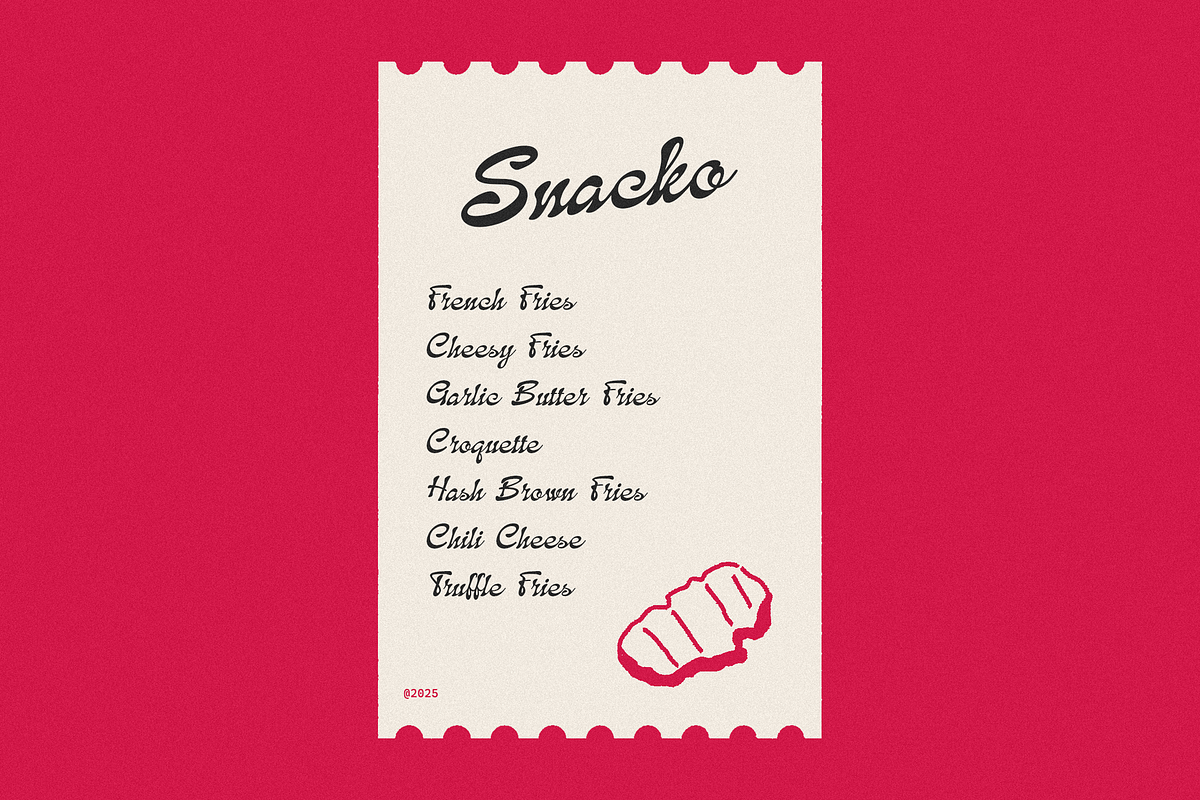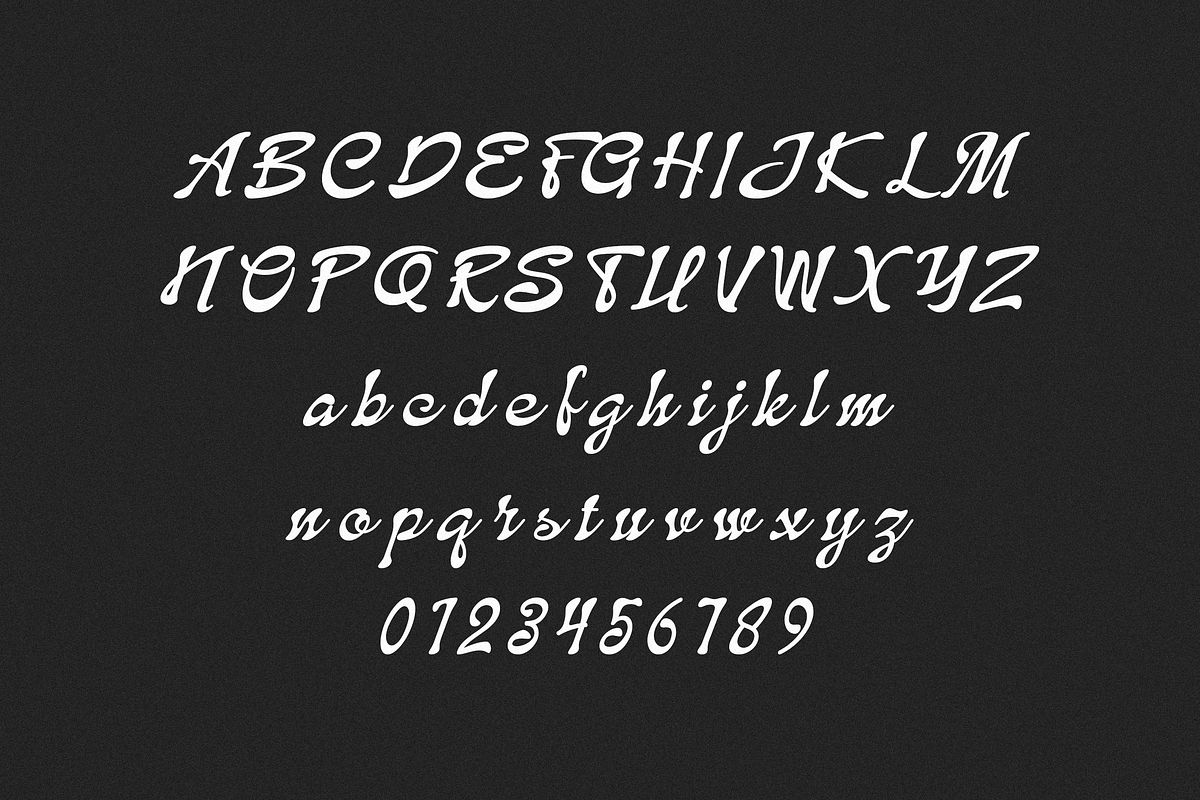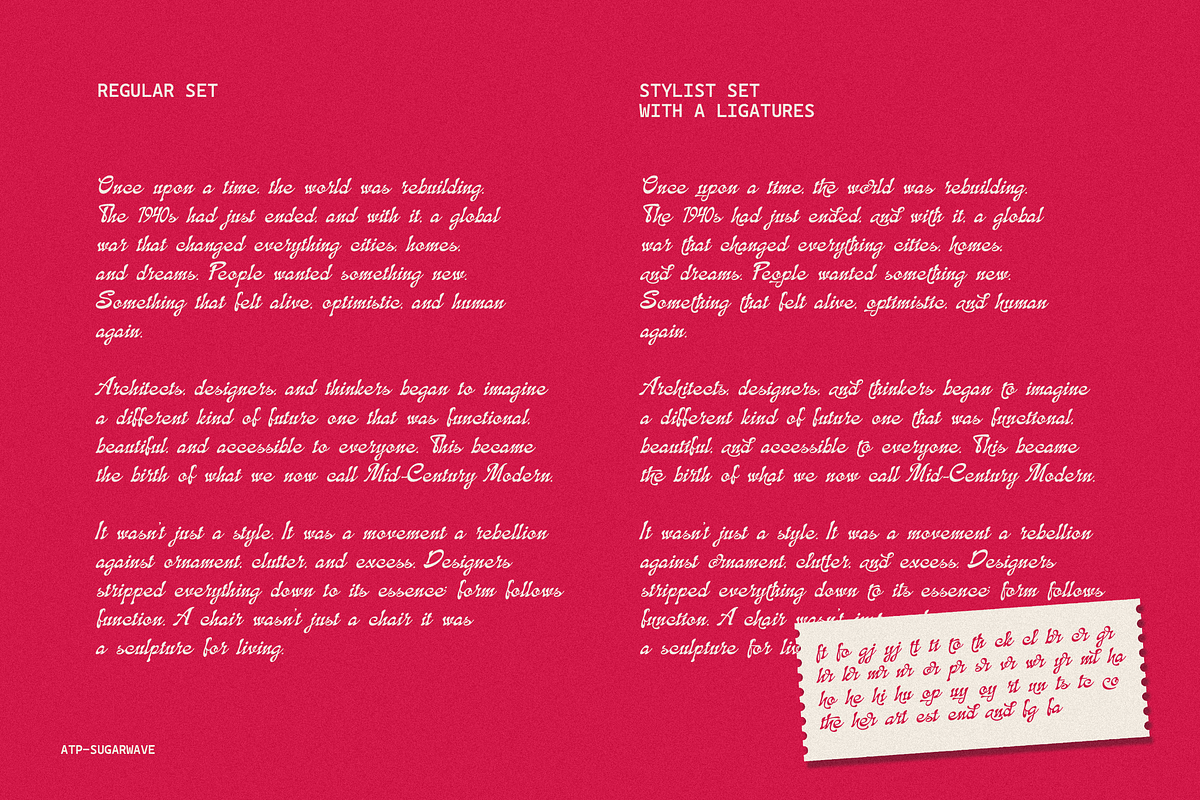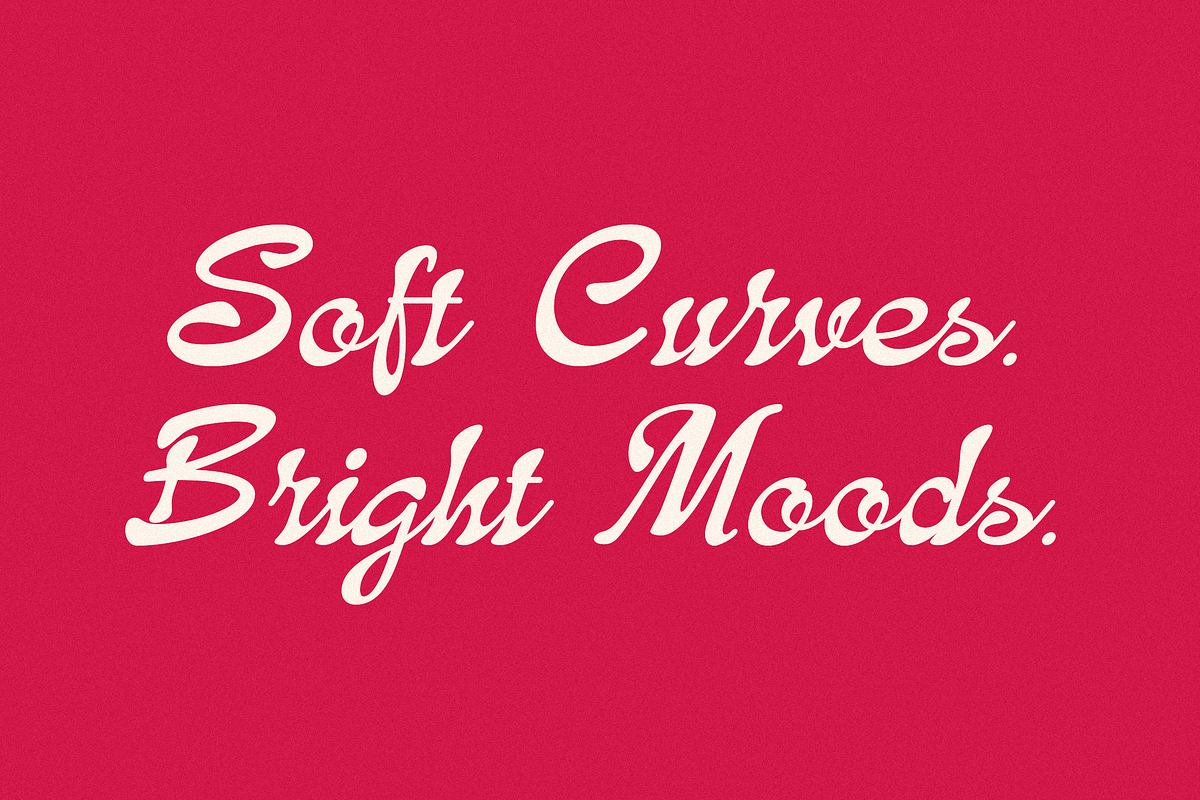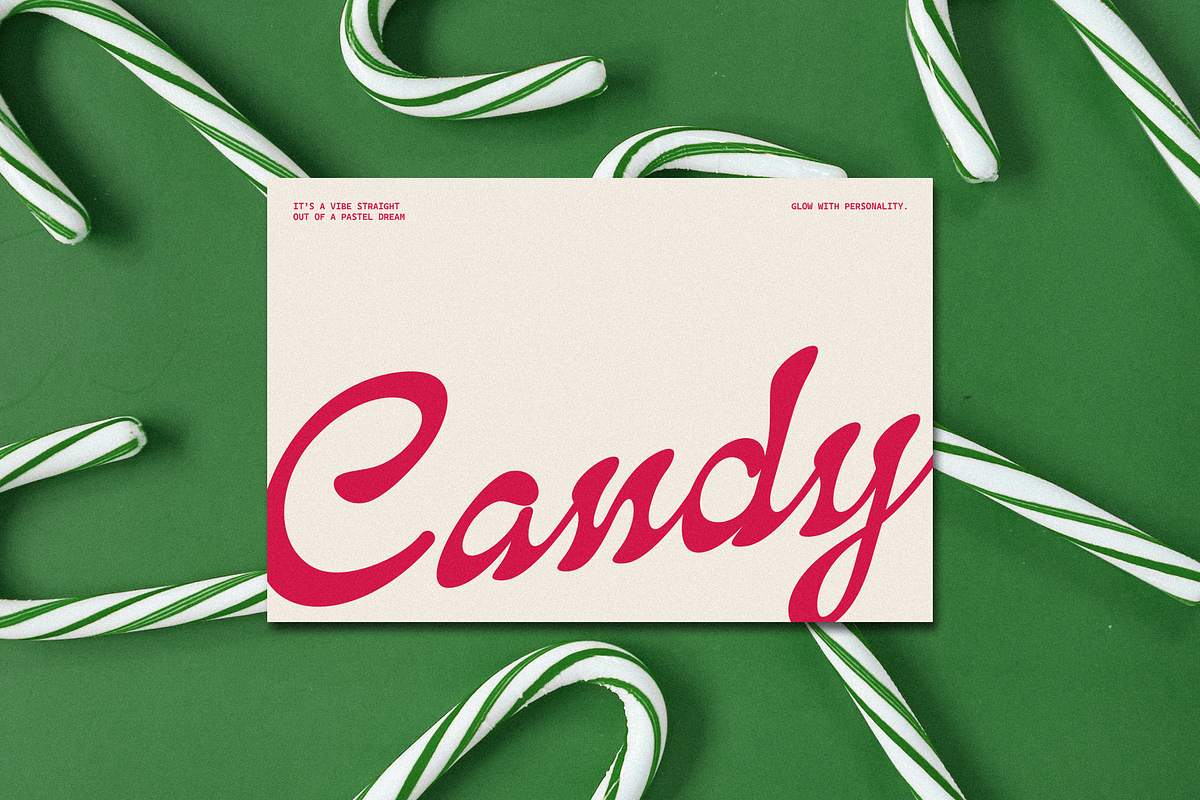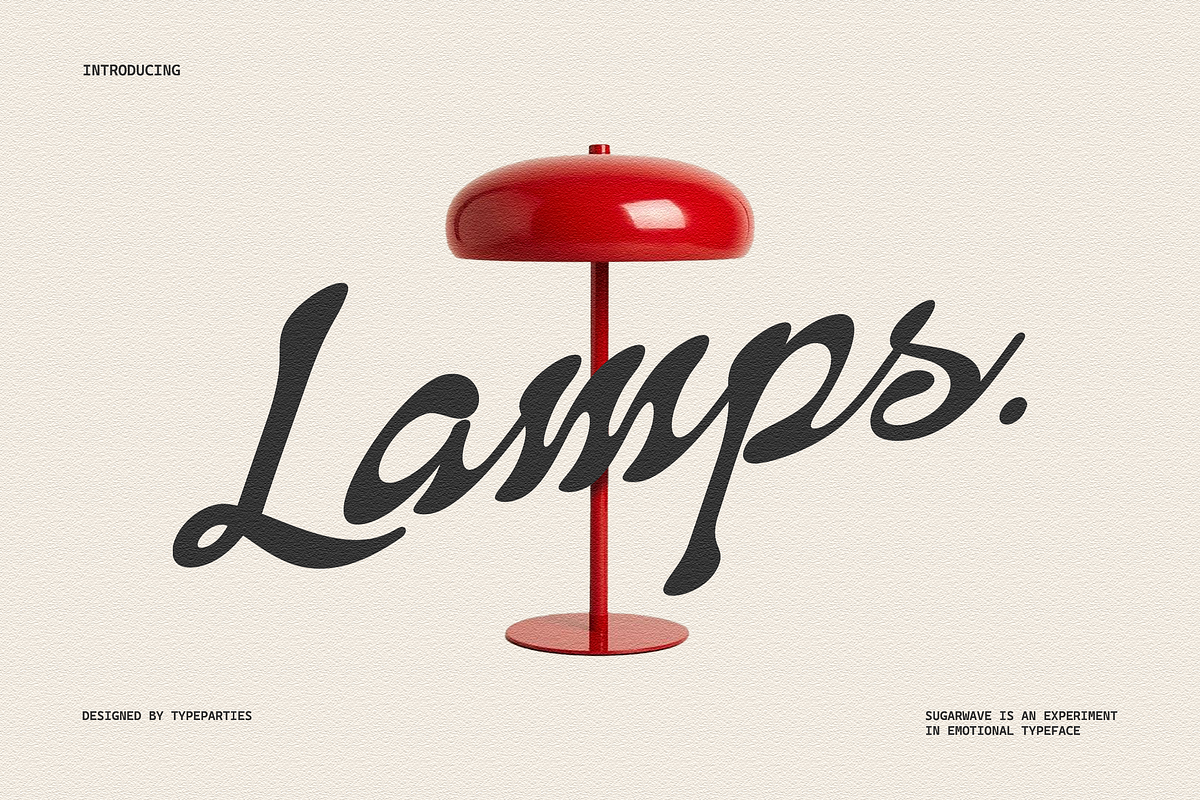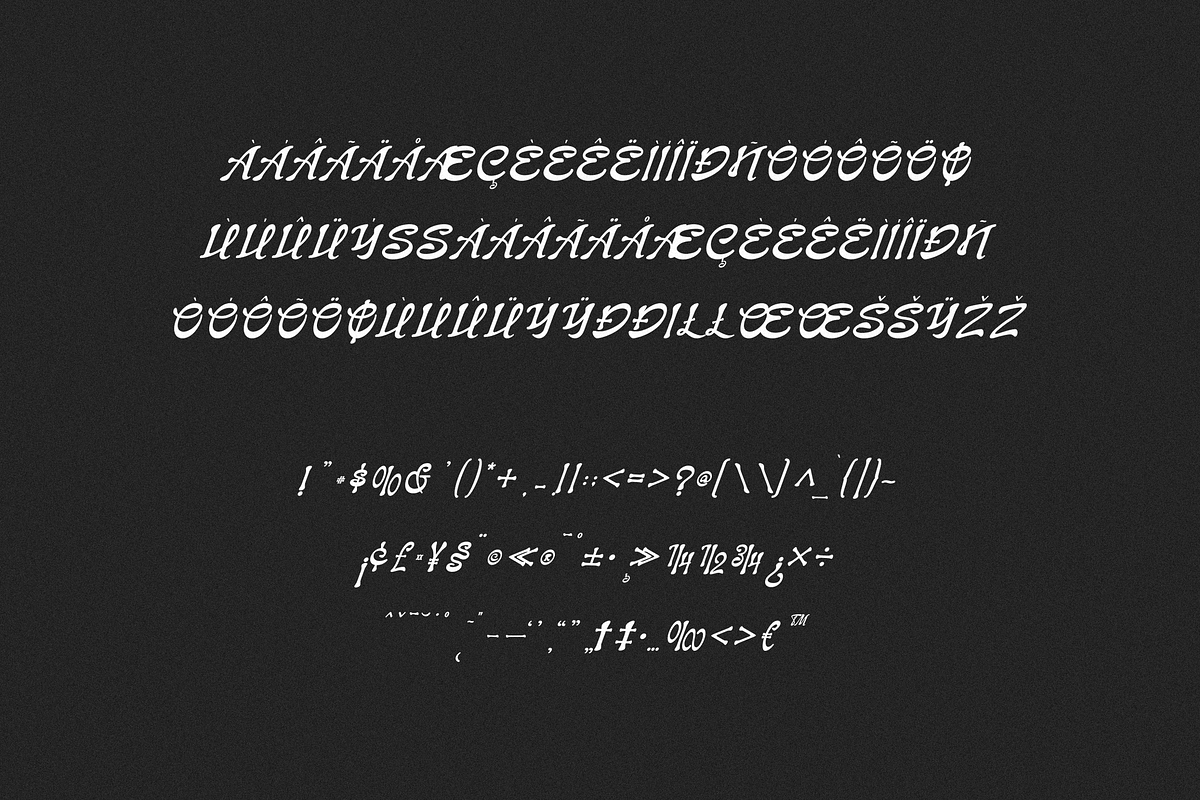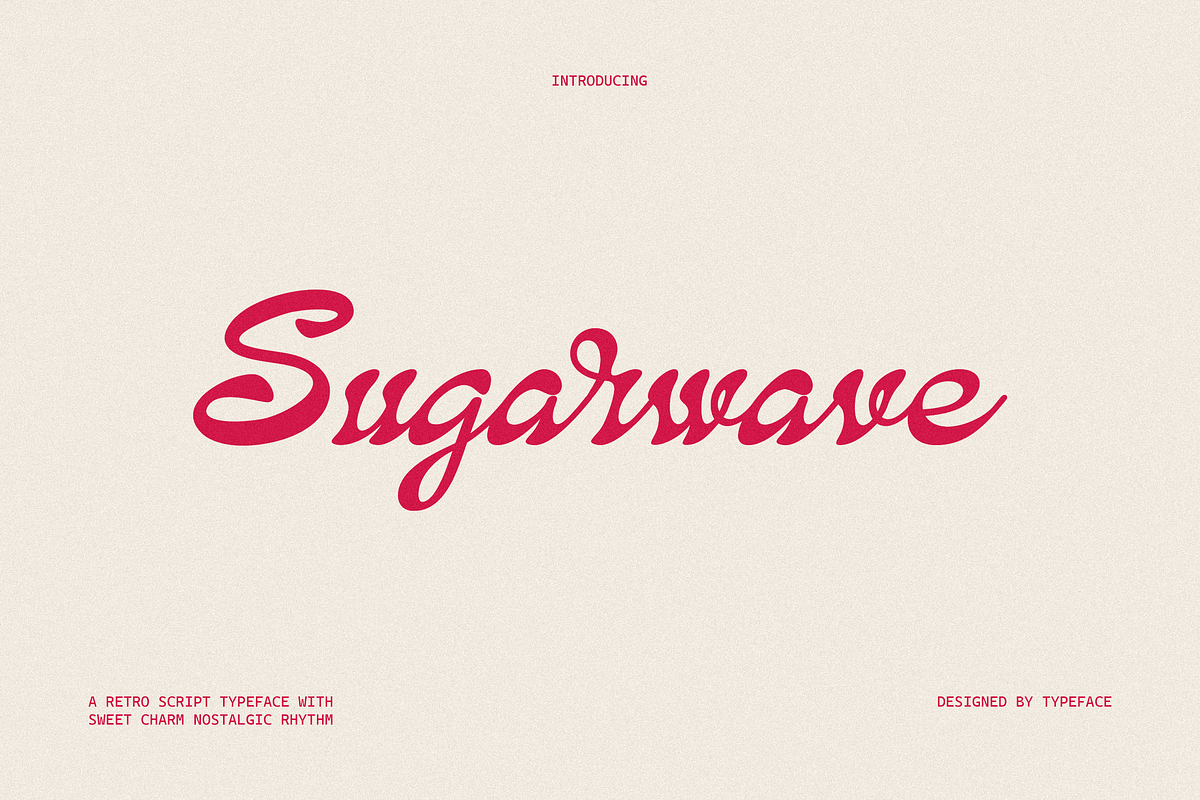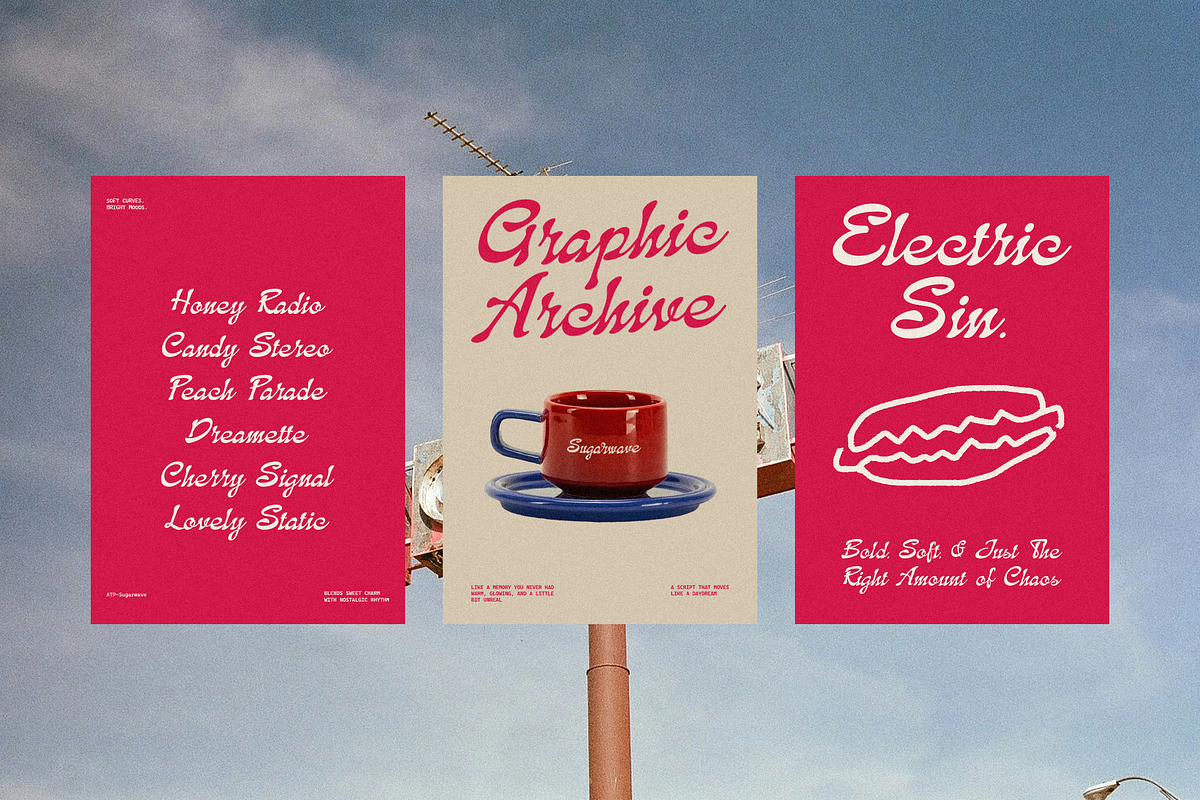
Sugarwave - Retro Script Font
Sugarwave isn’t just a fon, it’s a vibe straight out of a pastel dream. Think neon lights, soft vinyl static, and endless summer playlists. It flows with confidence, mixing sugar-sweet curves and retro rhythm. Designed for creators who like their nostalgia a little messy and a lot alive. Perfect for logos, posters, and everything that deserves to glow with personality.